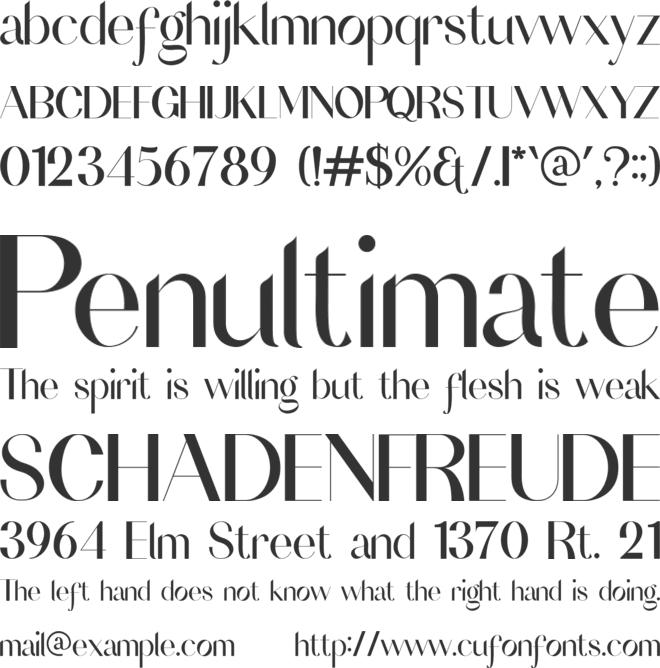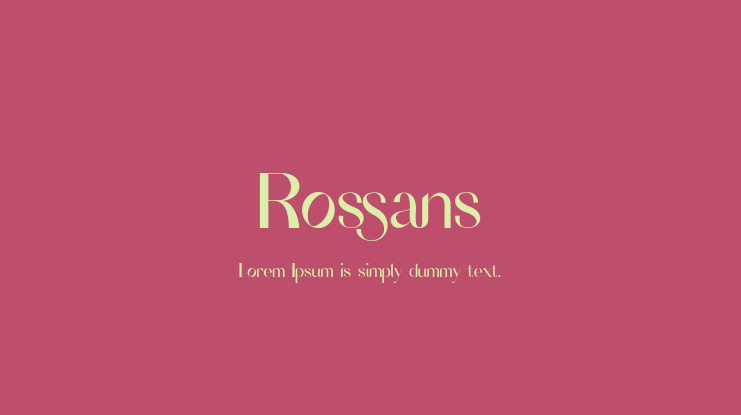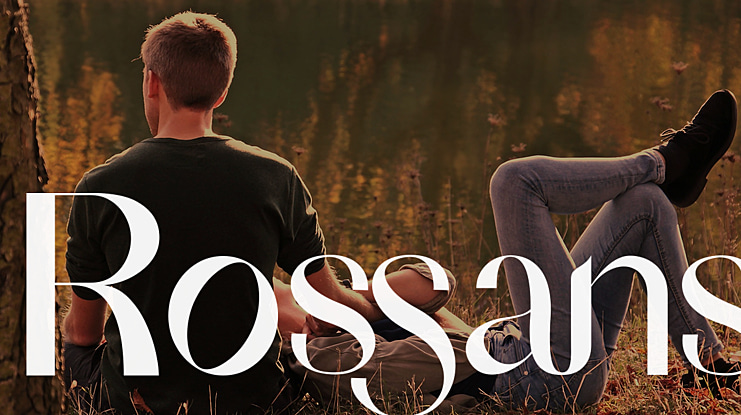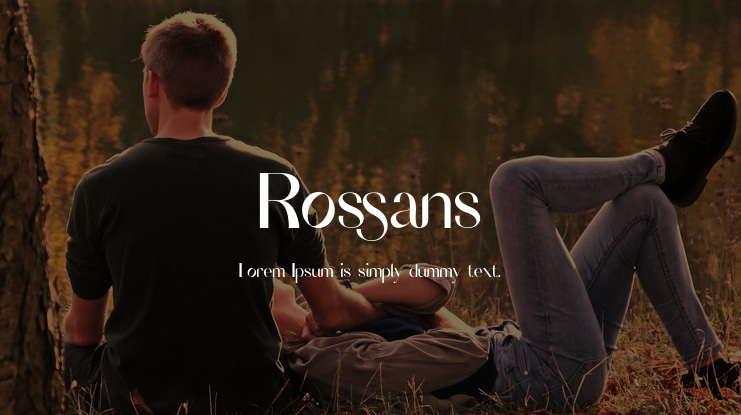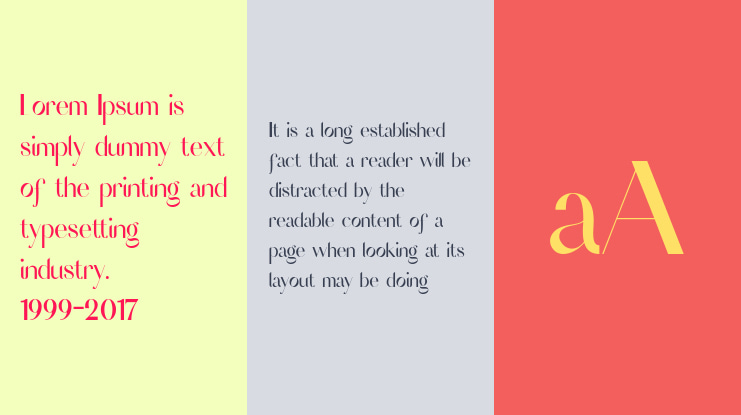
Rossans Font
This is an elegant, modern sans-serif typeface crafted & designed by rmdndsign. It includes upright and Oblique style. Trendy yet elegant, this font will elevate each of your creations. With it, you can create logos, use in advertising, packaging, book covers and magazines, headings, descriptions and much more. This font is PUA encoded which means you can access all of the glyphs and swashes with ease!